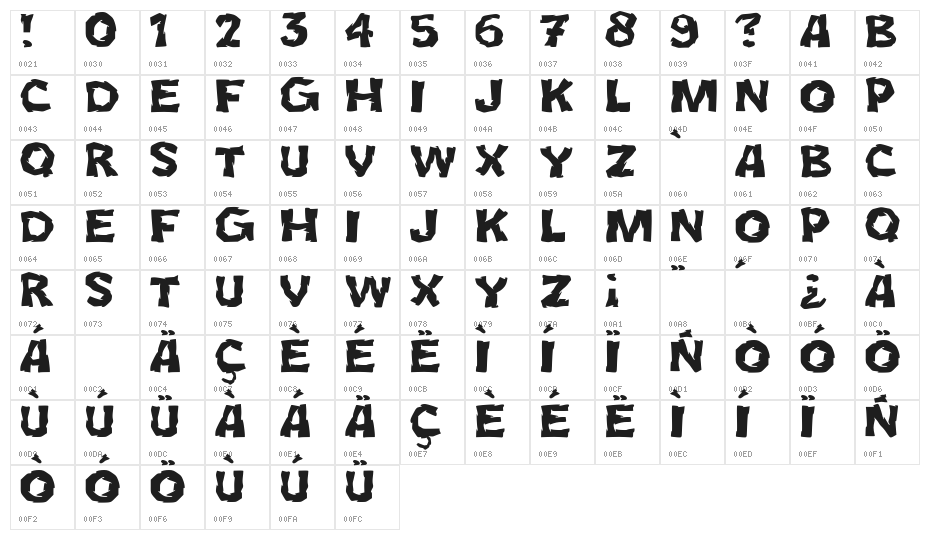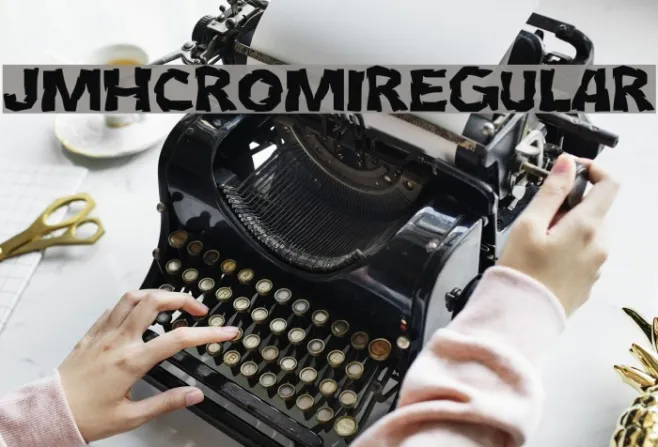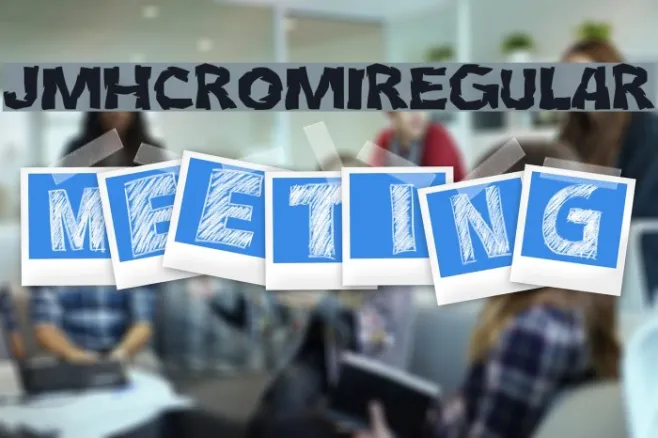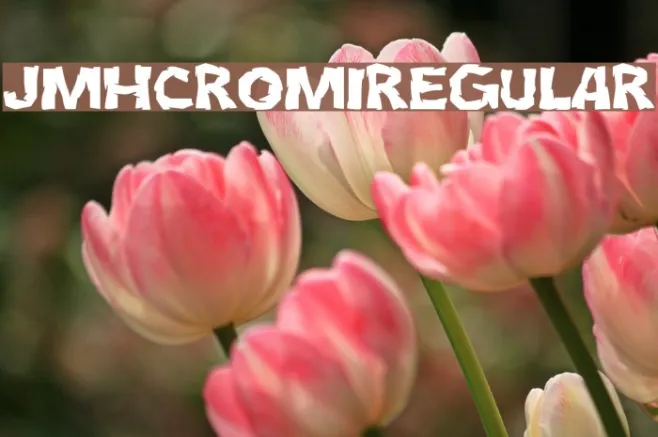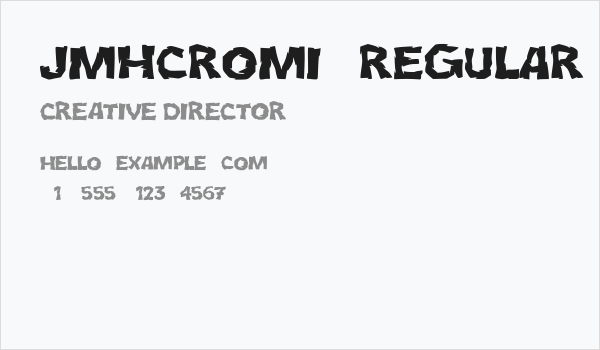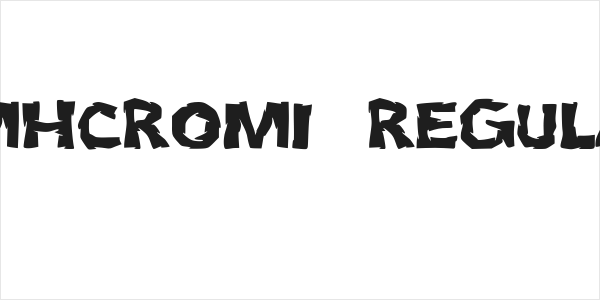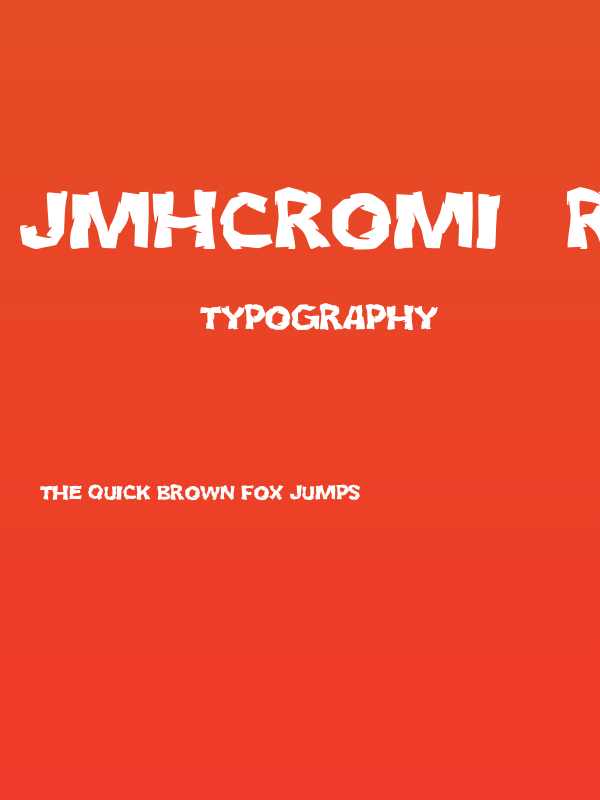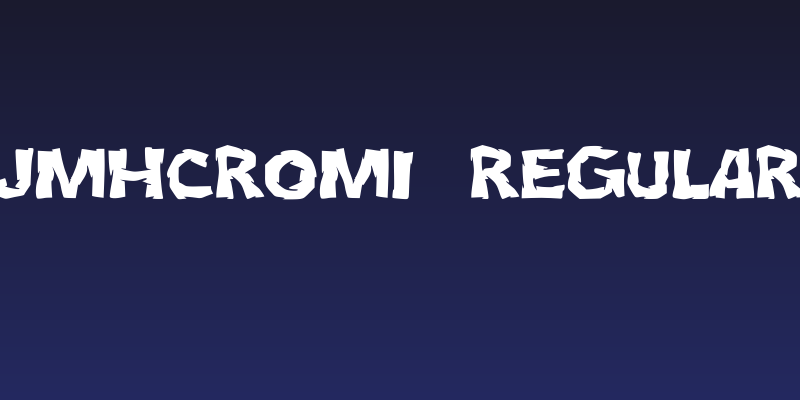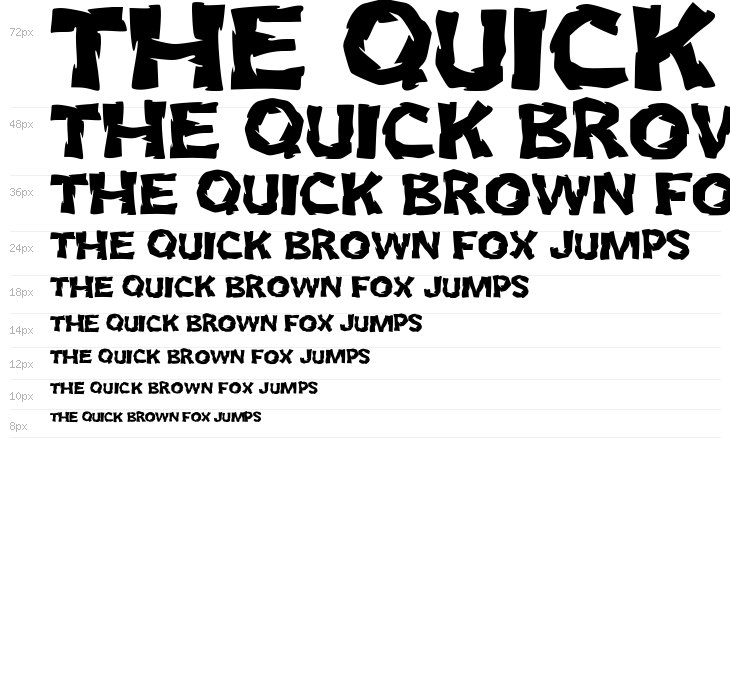
JMHCromI-Regular Font
JMHCromI-Regular Description
This font features a bold and dynamic style with a rough, jagged appearance that gives it a hand-crafted feel. The characters are heavily stylized with irregular edges, creating a sense of movement and energy. The uppercase and lowercase letters maintain a consistent weight, while the numbers and special characters follow the same design principles, ensuring uniformity across all glyphs. This font's unique aesthetic makes it stand out, ideal for projects that require a strong visual impact.
| Proposed Projects | Ideal for posters, album covers, video game titles, and branding that requires a bold, edgy look. |